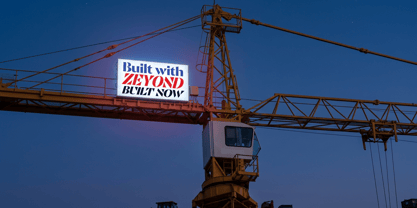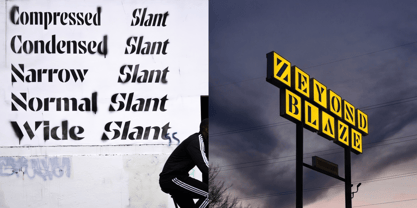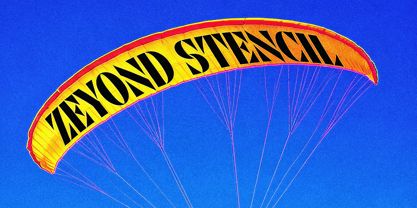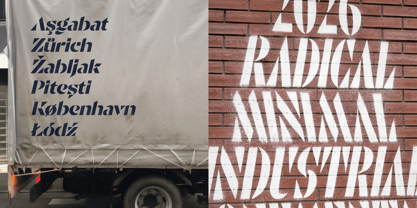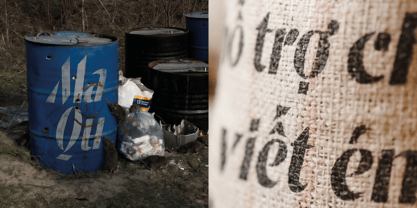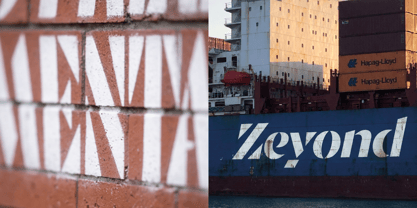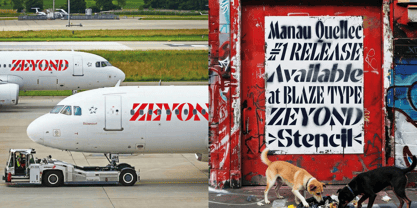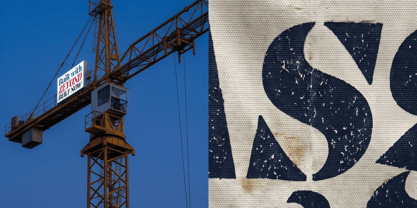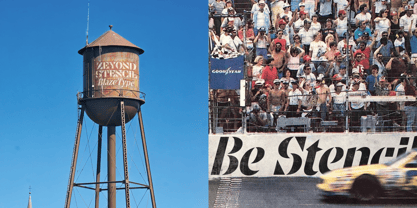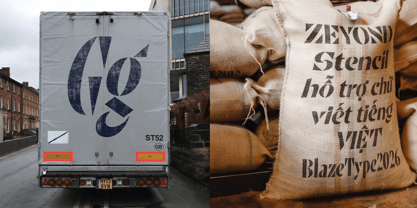
Zeyond Stencil
by Blaze Type
The Zeyond Stencil Font Family was designed by Manau Quellec and published by Blaze Type. Zeyond Stencil contains 10 styles. More about this family
Zeyond Stencil is a display stencil typeface built on a radical modular and geometric approach. Originally developed as a custom single-weight typeface for the contemporary art collective Beyond The Post-Soviet, it was designed as part of the visual identity for their exhibition program at the Maison de la Culture d’Amiens in 2023. Rooted in a brutalist sensibility, the design takes cues from the architecture of the MCA building. Sharp cuts and orthogonal structures interact with elongated curves, echoing the tension between rigid volumes and fluid surfaces found in the façade. This interplay defines the overall rhythm of the typeface. Initially conceived for signage, Zeyond Stencil expands across multiple widths, from Compressed to Wide. The stencil construction fragments counters and breaks continuity, turning structural constraints into graphic features. Diacritics are treated as independent shapes, reinforcing the modular logic of the system. Rather than relying on traditional contrast, the typeface operates through the balance of mass and void. At display sizes, forms become increasingly expressive, oscillating between legibility and abstraction. Zeyond Stencil functions as both a typographic tool and a spatial system, translating architectural language into a bold and constructed typographic voice.
Designers: Manau Quellec
Foundry: Blaze Type